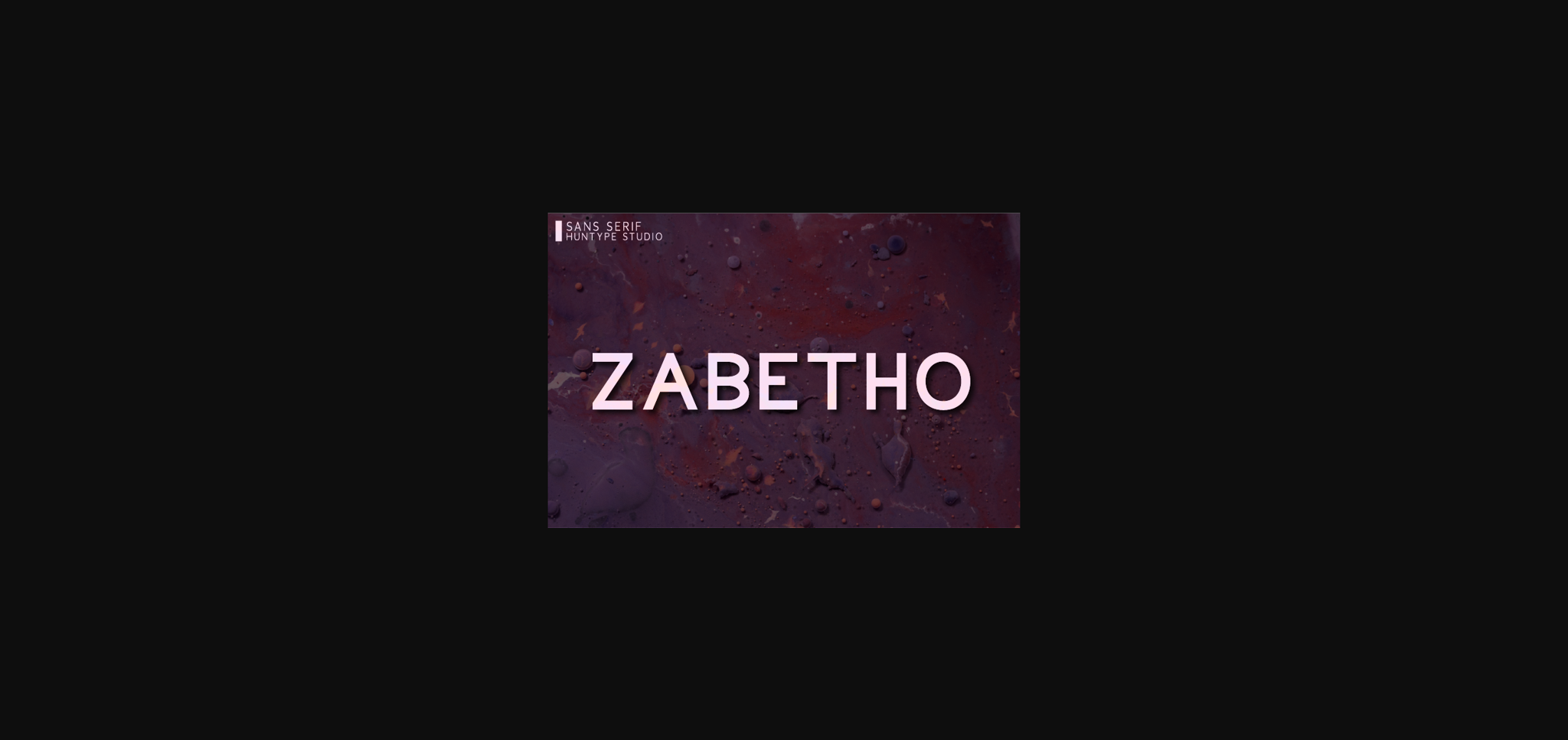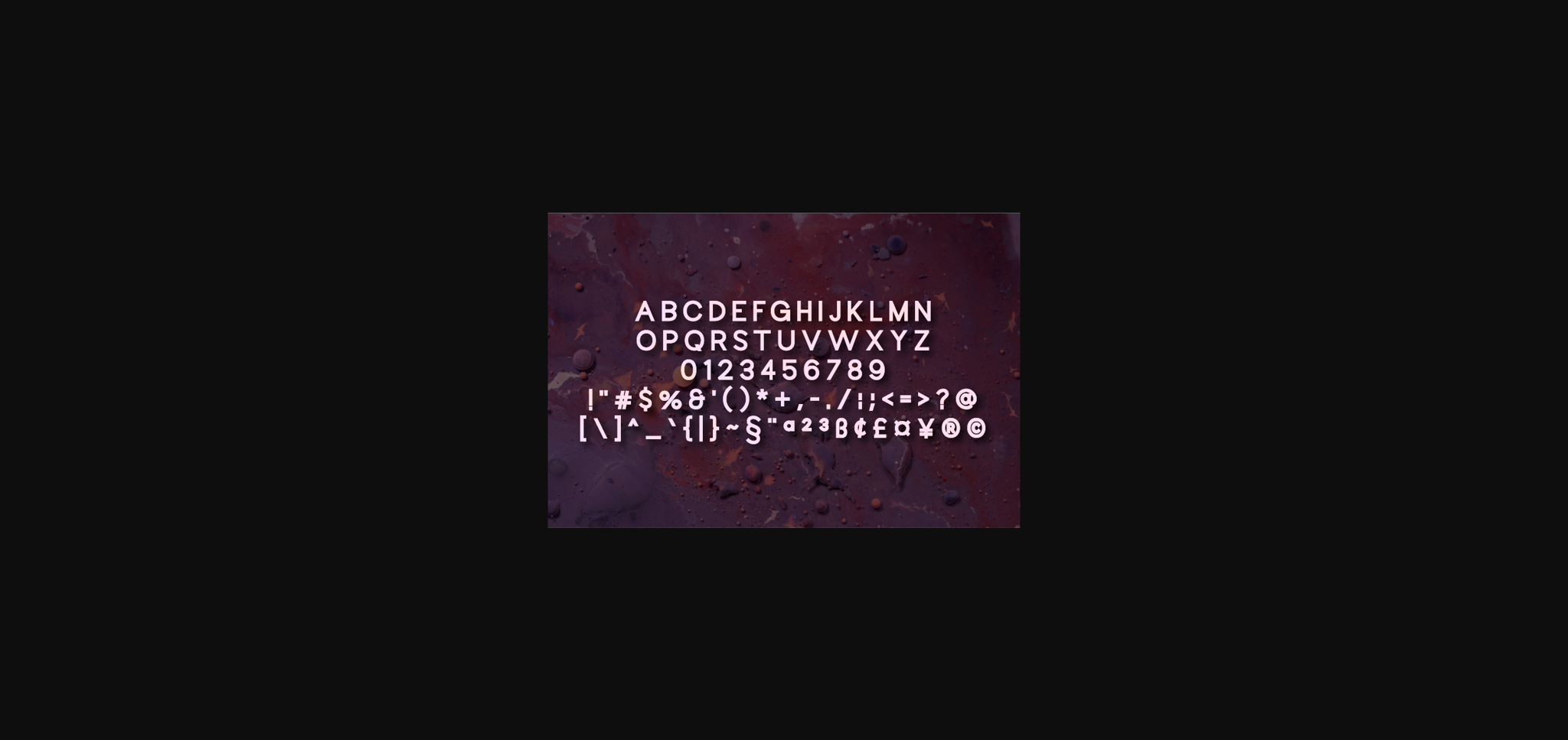
Zabetho Font
About Zabetho Font
Zabetho is an elegant sans serif font. It will look particularly adept when used in logos, branding, packaging design, and much more.